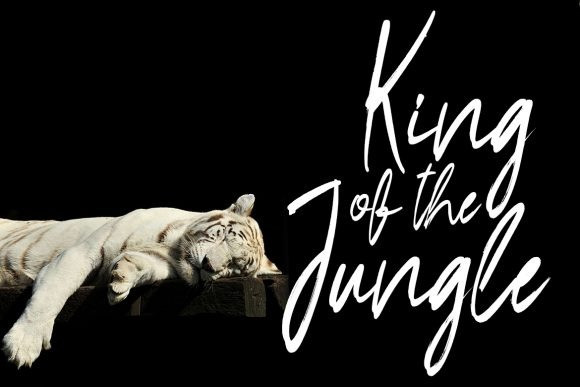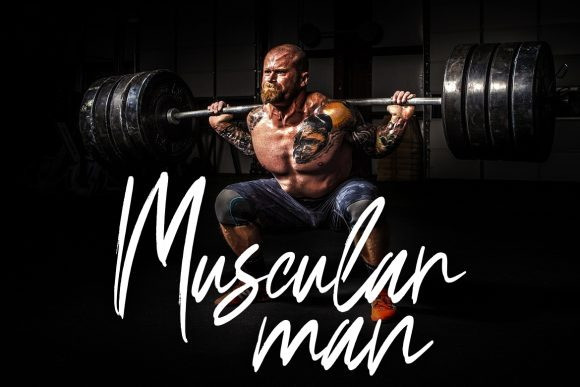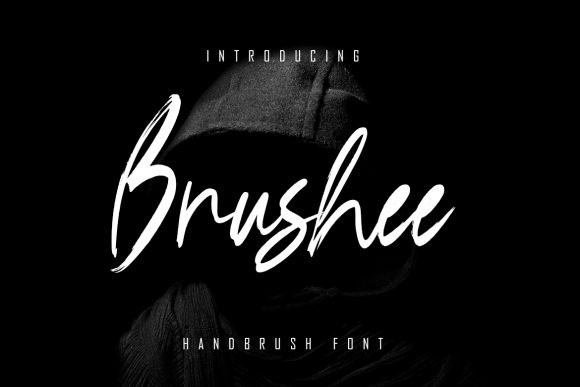
Brushee Font
Brushee Font is a stylish and luxurious handwritten font. Not too thin and not too thick, balanced and varied, Brushee was designed to enhance the beauty of your projects.